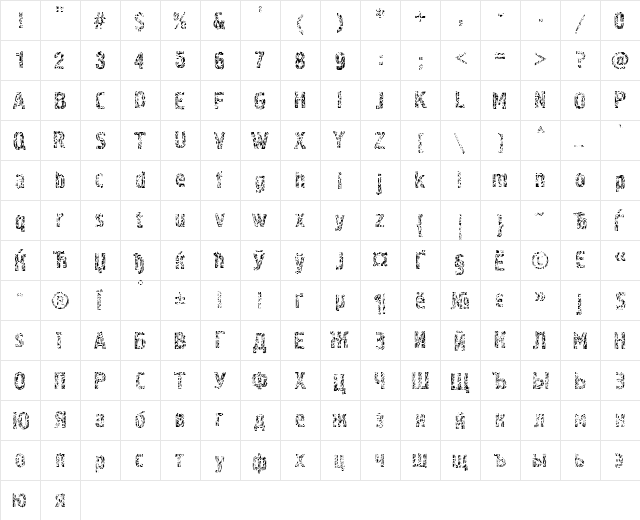
Pollock4C Regular
Design Context for Pollock4C Typeface
Pollock4C is a composed and adaptable typeface that performs quietly and consistently across a wide range of design contexts.